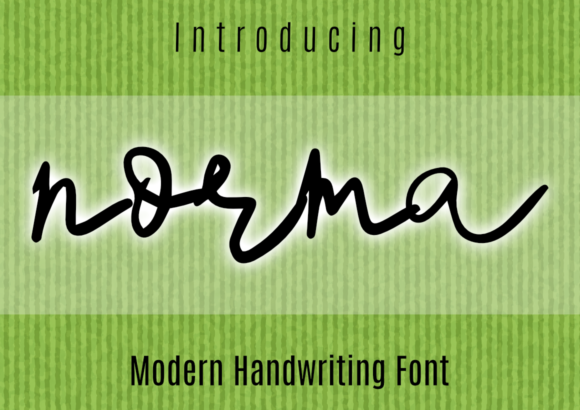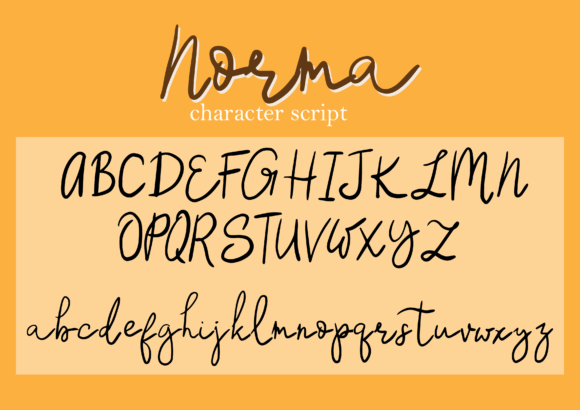
Norma Font
About Norma Font
Norma is a bouncy handwritten font. This font is the perfect fit for all of your logos, branding, social media, and crafty DIY projects.